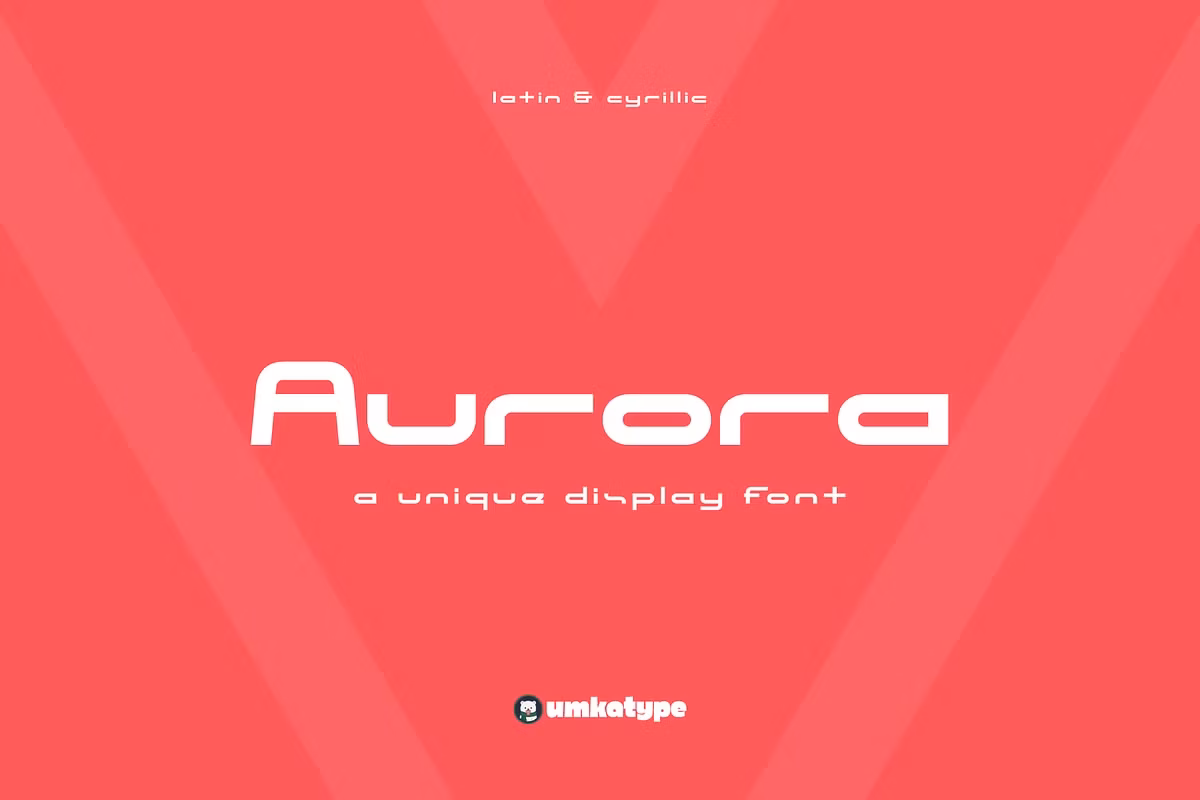
Aurora Display Font Free Download is a bold and modern typeface with a touch of futuristic elegance. Designed to stand out, Aurora is ideal for headlines, branding, posters, fashion editorials, album covers, and digital graphics that require a sleek, high-impact look.
With sharp lines, geometric flair, and contemporary styling, this display font brings drama and sophistication to any visual project. Aurora includes uppercase letters, punctuation, multilingual support, and is fully compatible with both Mac and Windows platforms.